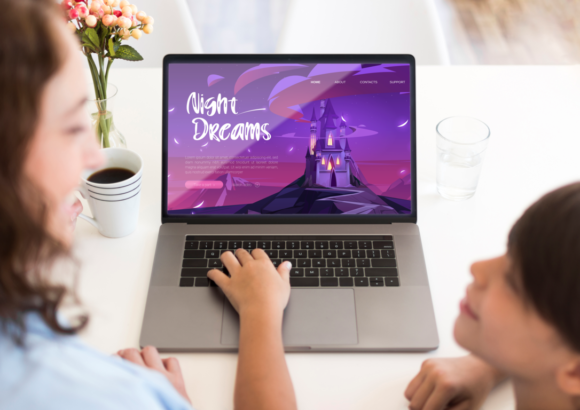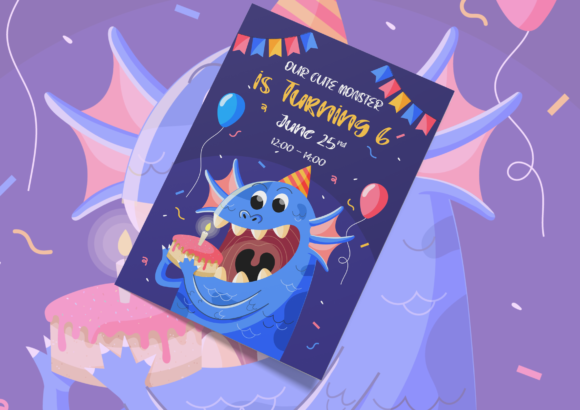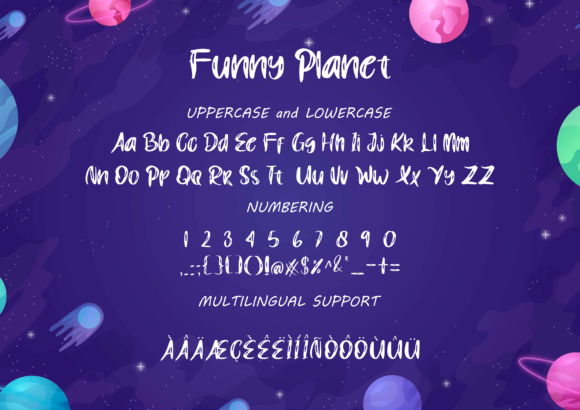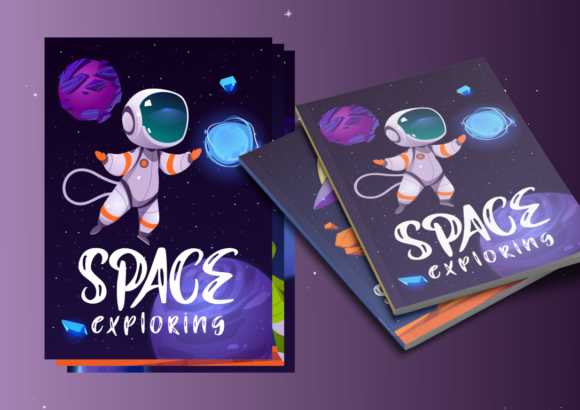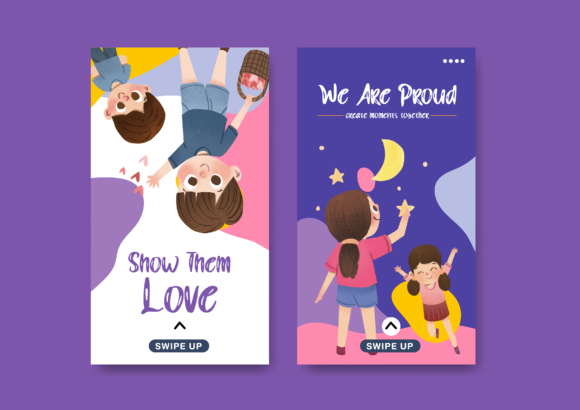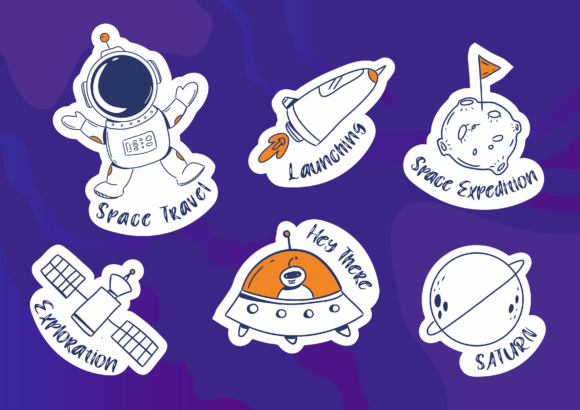
The Perfect Font for a Giggle
Remember when you were a kid and your art teacher asked you to create a poster for the school’s annual talent show? You probably spent hours rummaging through your crayon box, searching for the perfect colors to match your imagination. But what if I told you that there’s a font that can bring back that same excitement and creativity?
Meet the Funny Planet Font, a cute and playful display font that embodies friendliness and authenticity. This font is perfect for any children’s activity or school project, and it’s exactly what designers need to add a touch of whimsy to their designs. Whether you’re creating a children’s book, a logo for a kids’ clothing brand, or a poster for a family-friendly event, Funny Planet Font is the perfect choice.
Key Features of Funny Planet Font
- Font Family: Funny Planet is a playful sans-serif font family designed for fun and creative applications.
- Character Count: The font family includes a wide range of characters, including uppercase and lowercase letters, numbers, punctuation marks, and special characters.
- Unique Characteristics: Funny Planet features a unique, hand-drawn style with bold lines and playful flourishes, making it perfect for adding a touch of whimsy to designs.
Designer Review: Funny Planet Font
Overall, I think the Funny Planet Font has its moments, but it’s not a game-changer. Here are my thoughts on what works well and what doesn’t.
- The font’s playful, hand-drawn feel is great for informal or whimsical designs.
- The weight and spacing variations are well-executed, allowing for a good range of expression.
- The font’s quirky, offbeat charm can be a great fit for brands looking to stand out.
- The font’s readability suffers at smaller sizes, which can be a problem for text-heavy designs.
- The lack of bold or condensed weights can limit the font’s versatility.
- The font’s style, while fun, may not be to everyone’s taste, which can be a drawback for more conservative brands.
In conclusion, the Funny Planet Font is a solid choice for designers who want to add some personality to their work, but it’s not a go-to font for everyday use. With a bit more development, I think it has the potential to be a real standout, but for now, it’s more of a niche option.
“Funny Planet Font” is ideal for:
- Creating playful and whimsical designs.
- Adding a touch of humor to your content.
- Designing children’s products and educational materials.